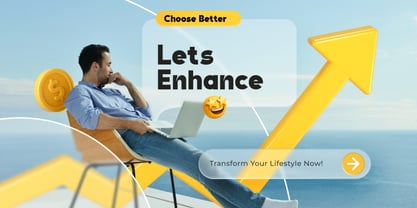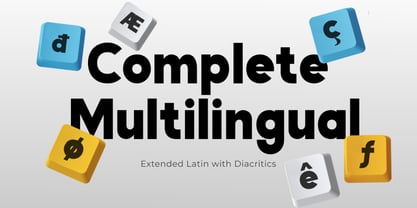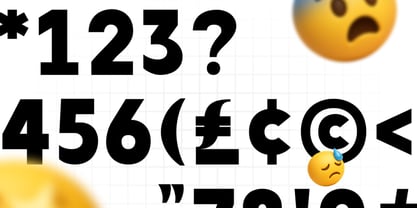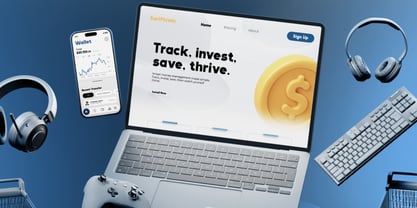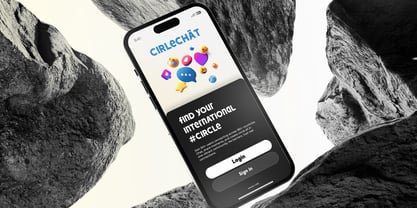
Mebula
by Vadova Std
Mebula is a bold, clean, and contemporary display sans serif typeface designed for clarity, versatility, and strong visual impact. Featuring geometric letterforms with subtle humanist cues, Mebula balances modern simplicity with distinctive character, making it perfect for a wide range of design applications. This font family includes uppercase and lowercase alphabets, numerals, punctuation, extended multilingual support, and 14 stylistic alternates to enhance creative expression. Mebula is ideal for designers, creatives, and brands seeking a modern typeface that combines bold presence with clean readability. Its geometric forms and extended language support make it well‑suited for fresh branding systems, professional headlines, product packaging, promotional posters, web and app interfaces, social media graphics, editorial layouts, and corporate identities.